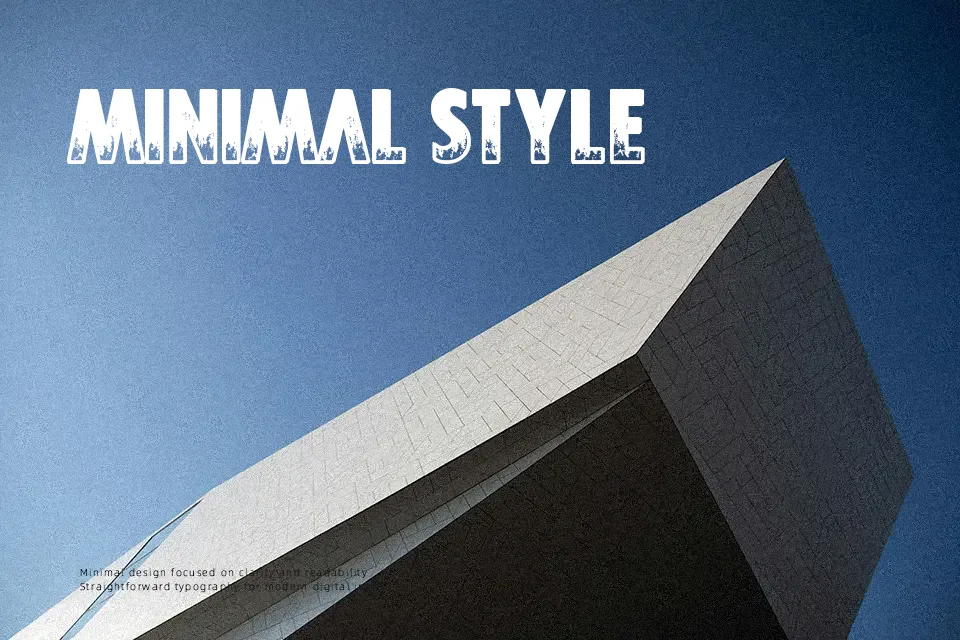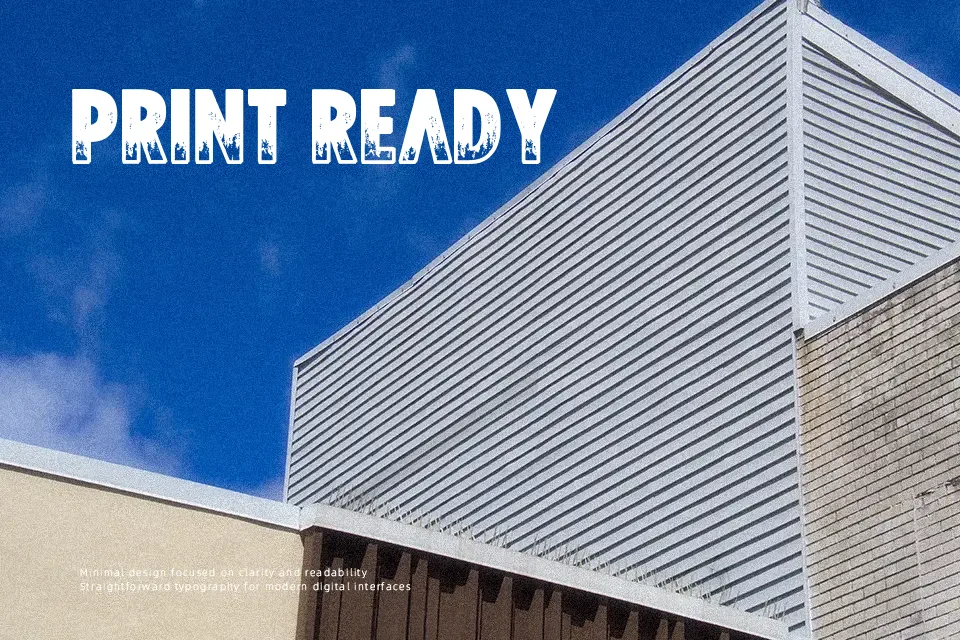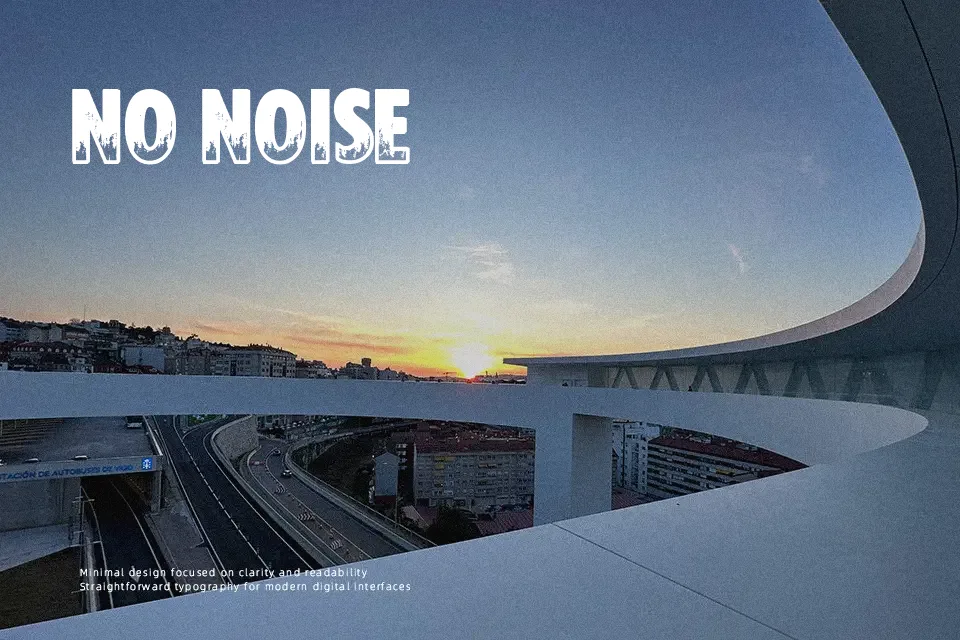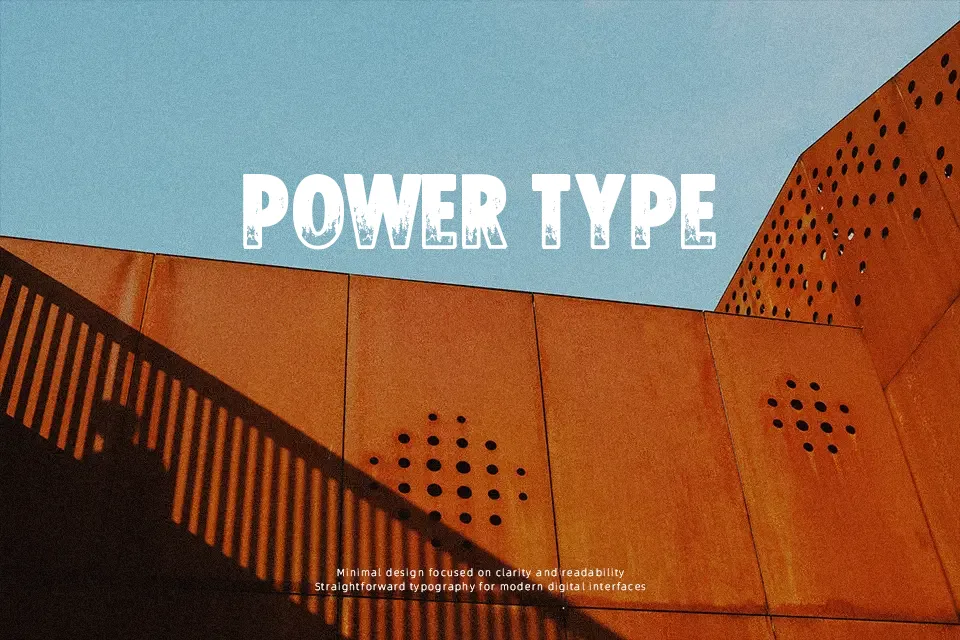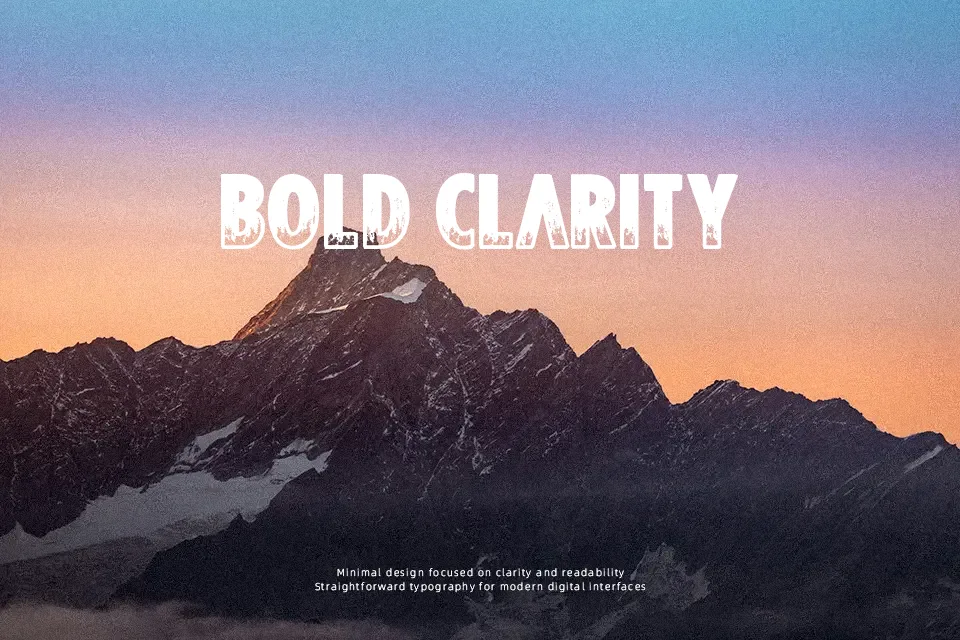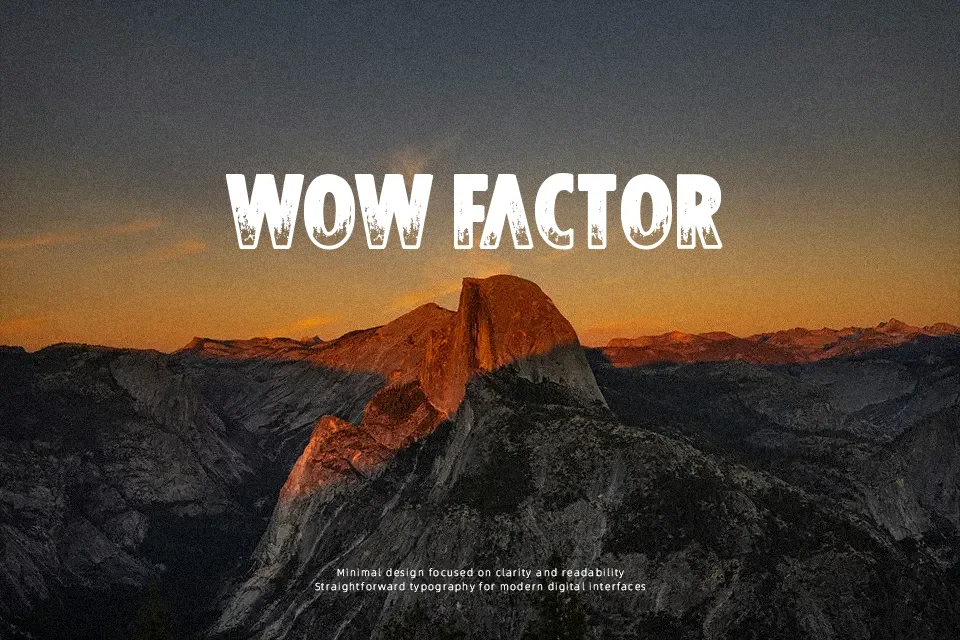
Tyrannothesaurus Font
Designed by Chequered Ink
Tyrannothesaurus Font uses heavily distressed display letterforms with fractured edges, uneven contours, and a rough, damaged surface. The uppercase-focused design creates an aggressive visual rhythm, while its irregular strokes and decorative disruption give short words a forceful presence. It works most effectively in large titles, poster text, and graphic overlays where the texture can remain visible. The rough construction makes individual letters less immediately clear at reduced sizes, so it is not a comfortable choice for dense copy. In practice, the typeface reads strongest when given generous scale and a simple surrounding layout.
Best For: horror film posters,dark game titles,album cover graphics,Halloween event headlines
Perfect for film, gaming, and halloween, with a dark and decorative style.